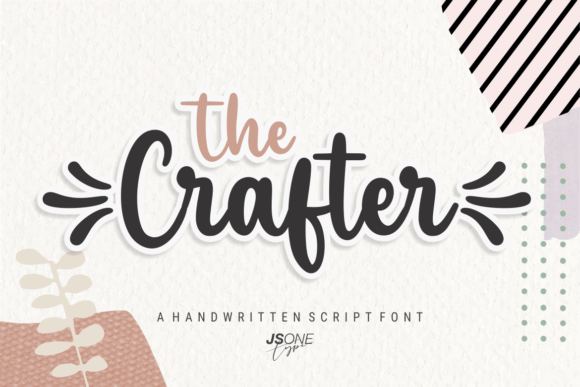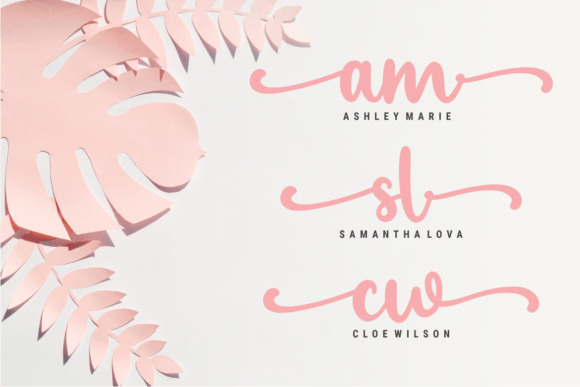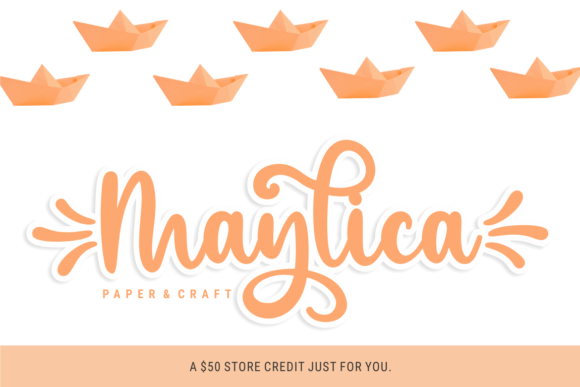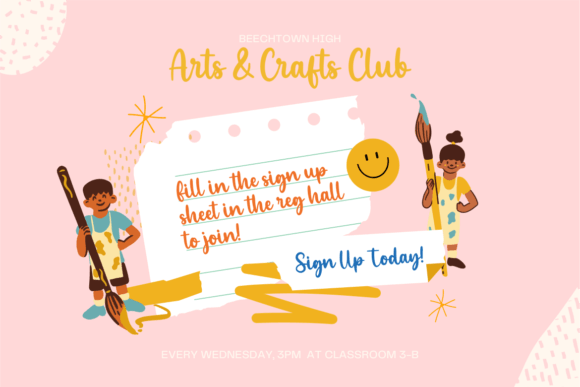
About The Crafter Font Download
The The Crafter Font Download is a delicate, elegant, and stylish handwritten script designed to bring a romantic and refined touch to your projects. With smooth strokes and graceful curves, this versatile typeface adapts beautifully to both personal and professional applications. Because it is PUA encoded, you can access all glyphs, ligatures, and swashes with ease, making customization simple and creative.
A Handwritten Script with Stylish Elegance
The Crafter blends timeless calligraphic beauty with a modern handwritten rhythm. Unlike generic typefaces, this The Crafter script font adds a sense of artistry and sophistication. As a result, it is perfect for projects that demand clarity, elegance, and personality at once.
Romantic designs look more meaningful when paired with handwritten details. The The Crafter Font is ideal for wedding invitations, thank you cards, birthday notes, and seasonal greetings. Moreover, its graceful strokes give each project a warm, heartfelt presence.
Branding and Packaging with The Crafter Font
Typography is one of the strongest ways to define a brand’s character. The The Crafter handwritten font works perfectly for boutique logos, product packaging, and promotional campaigns. In addition, its classy yet modern design ensures businesses appear elegant and memorable.
Posters, Headlines, and Creative Displays
The The Crafter Font Download is highly effective in large-scale designs such as posters, banners, and magazine titles. Therefore, it is a versatile option for designers who want a script font that delivers beauty in both print and digital formats.
In the fast-paced digital world, engaging typography is key. The The Crafter typeface integrates seamlessly into Instagram posts, Pinterest graphics, YouTube thumbnails, and blogs. Its elegant handwritten charm ensures that your content feels polished and creative.
Why Designers Choose The Crafter Typeface
Designers appreciate fonts that maintain legibility while offering artistic flair. Many handwritten scripts lose clarity at smaller sizes, but the The Crafter handwritten script remains clean and stylish without losing its distinct character. This makes it a dependable tool for professionals and hobbyists alike.
Add Romantic Elegance to Your Projects Today
If you want a handwritten script that feels elegant, stylish, and versatile, the The Crafter Font Download is the perfect choice. From invitations and logos to posters and digital content, it enhances every project with romantic sophistication. Finally, download The Crafter today and let your designs shine with timeless beauty.